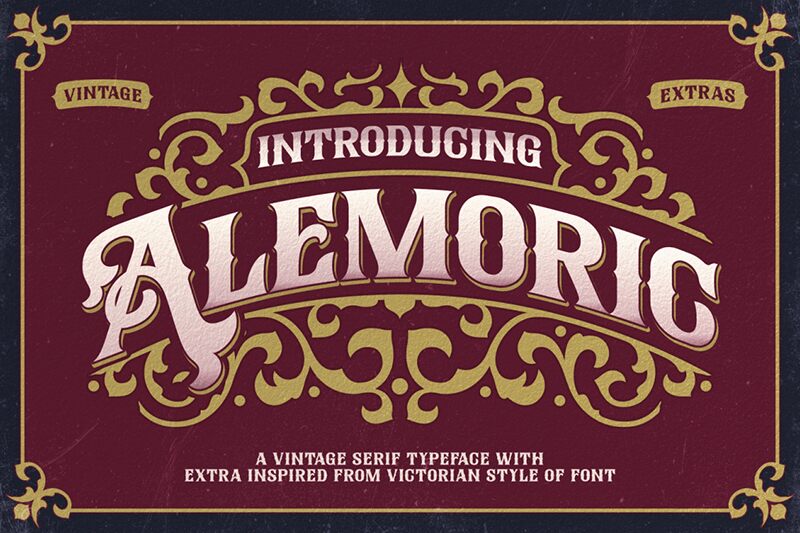
Alemoric
Alemoric font is a free display font by HansCo with medieval and retro influences. The main stylish appearance finds its roots in the gothic script, although this font has some distinguished modern details. The typeface looks bold and ornate with dramatic letter endings, highly detailed symbols, and an overall decorative appearance.
Writing that needs a strong character can look for a savior in Alemoric. Think of magic or magical books covers and library signage for a good start. A second list involves card games, board games, escape room visuals, video games around themes of dark age knights or apocalyptic worlds, schools for witchcraft branding and copywriting (perhaps Halloween), Elves R.P.G., norsemen graphic novels...